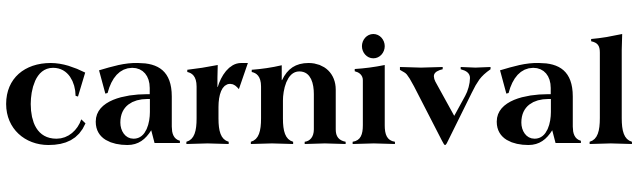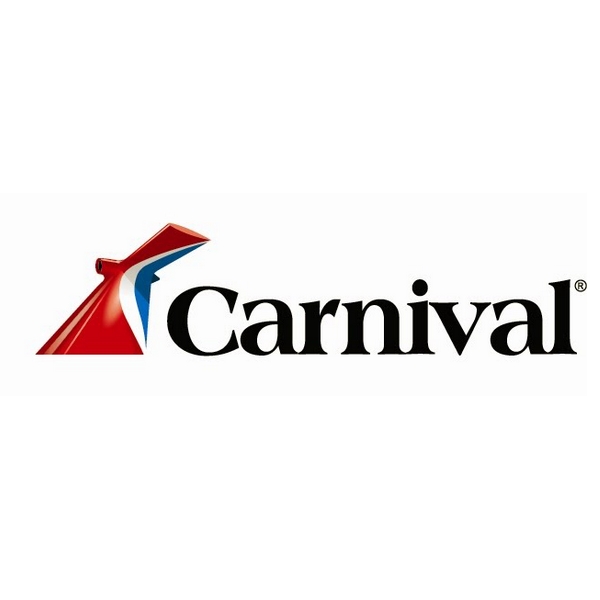
Carnival Cruise Lines Font
EntertainmentCarnival Cruise Lines is a multinational company offering various cruise experiences with a fleet of over 30 ships, making it one of the largest cruise lines in the world. The logo of Carnival Cruise Lines is a red, white, and blue whale's tail shaped funnel.
The logotype font used is likely Americana Extra Bold, designed by Richard Isbell in 1965.